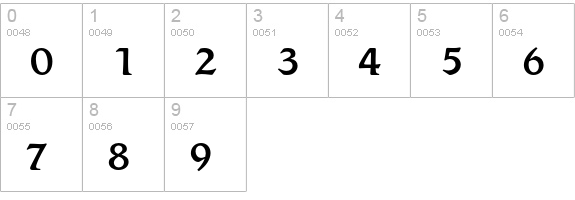
RomicEF-Medium is a balanced, medium-weight variant in the RomicEF typeface family \xE2\x80\x94 well suited to sub-headlines, navigation, and balanced editorial work.
RomicEF-Medium font exudes a sense of modern elegance and sophistication with its sleek and stylish design. Perfect for adding a touch of class to your projects, this versatile font is ideal for both professional and creative endeavors. The medium weight of RomicEF-Medium strikes the perfect balance between boldness and readability, making it suitable for a wide range of applications. What sets RomicEF-Medium apart is not just its striking aesthetics, but also the fact that it is available for free download at FontsMarket.com. This means you can elevate your designs without breaking the bank, making it an accessible choice for designers of all levels. Whether you're working on branding, advertising, or editorial projects, RomicEF-Medium is sure to make a lasting impression. Download RomicEF-Medium today and unlock the potential of this beautiful font for your next project. Experience the power of elegant typography at your fingertips, all for free at FontsMarket.com.